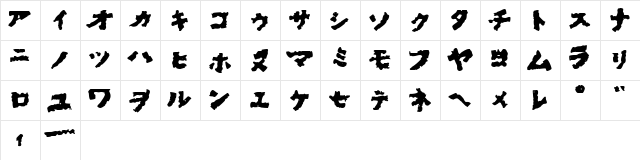
Godzilla's Ofuro Font Preview
Design Context for Godzilla's Ofuro Typeface
Godzilla's Ofuro is a composed and adaptable typeface that performs quietly and consistently across a wide range of design contexts.